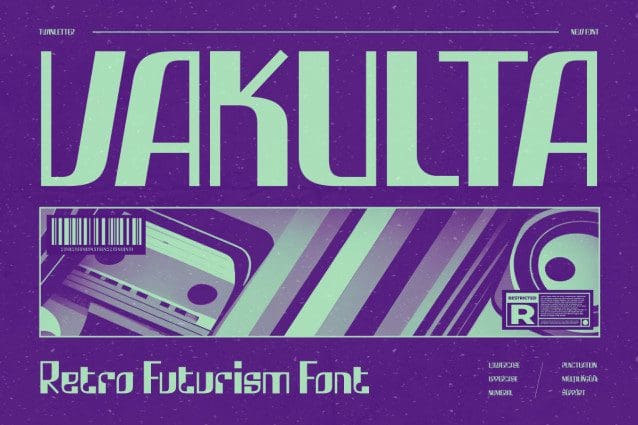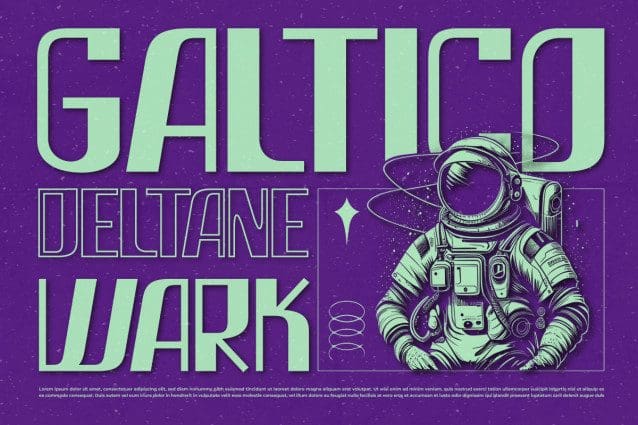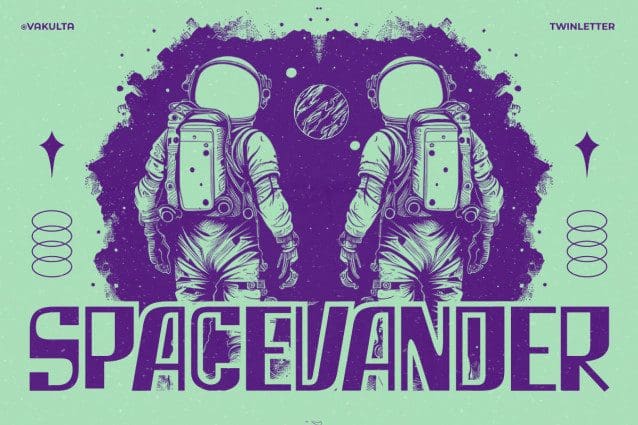
Vakulta Futurism Font
Vakulta Futurism Font, a Retro Futurism Font that blends vintage aesthetics with futuristic vibes. Ideal for sci-fi posters, retro-themed branding, video game titles, and more, Vakulta features sleek, angular letterforms that evoke the classic look of 80s sci-fi and cyberpunk. Each character is designed to transport your audience to a world where retro meets the future, creating a unique and captivating visual experience.
Vakulta’s bold and dynamic design is perfect for making your headlines and titles stand out. The font’s unique style makes it versatile for various creative projects, from digital artwork to print media, ensuring your text not only grabs attention but also leaves a lasting impression. Whether you’re working on a retro-futuristic branding project or crafting a nostalgic sci-fi design, Vakulta provides the perfect blend of past and future.
Embrace the retro-futuristic aesthetic with Vakulta Futurism, a font that brings together the best of both worlds to make your designs truly unforgettable.